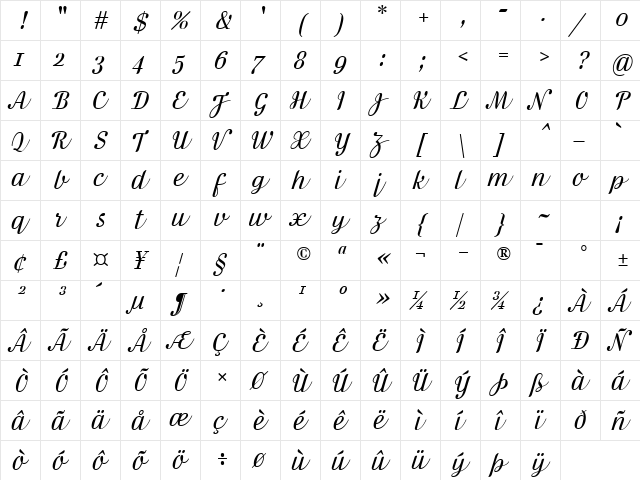
Danubia Script Regular
Design Context for Danubia Script Typeface
Danubia Script flows with the natural rhythm of handwritten lettering, making it ideal for designs that call for warmth and personal expression.
Font Pairing: Combine Danubia Script with a simple geometric sans for maximum contrast — the tension between flowing curves and clean structure is a classic typographic pairing.
Pro Tip: Pair Danubia Script with a clean sans-serif for supporting text. The contrast between fluid script and geometric structure creates an elegant typographic hierarchy.